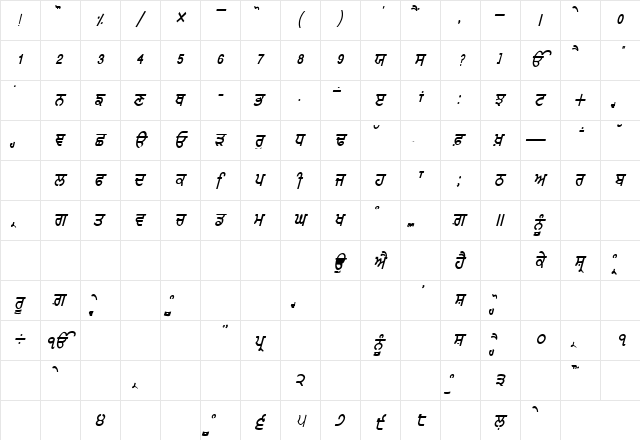
GurmukhiLys 010 Italic Normal
Design Context for GurmukhiLys 010 Italic Typeface
GurmukhiLys 010 Italic is a composed and adaptable typeface that performs quietly and consistently across a wide range of design contexts. The dynamic lean of this cut emphasises speed and emphasis in any layout.